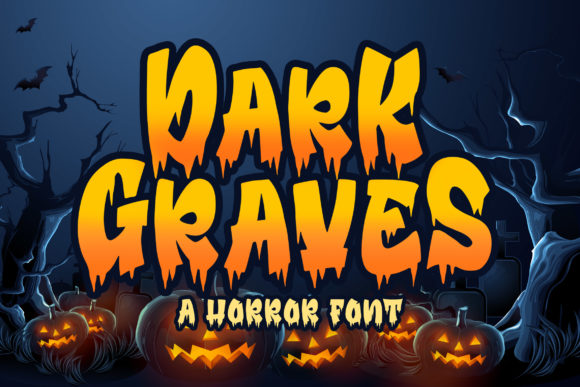
**Dark Graves Font: An Eerie Delight for the Macabre Aesthetic**
Unleash your inner ghoul and embrace the chilling allure of Dark Graves Font, a display masterpiece that will cast a sinister spell on your designs. This font exudes an authentic aura of the macabre, making it the perfect companion for all your spine-tingling projects.
Imagine crafting spine-chilling Halloween cards that send shivers down the recipients' spines. Or, envision creating haunting horror movie posters that will keep audiences on the edge of their seats. Dark Graves Font empowers you to weave tales of terror and enchantment with every stroke.
Its menacing curves and sharp angles evoke a sense of ancient mysteries, beckoning you to explore the depths of your imagination. Whether you're a seasoned designer or a creative novice, Dark Graves Font will elevate your projects to new heights of originality and impact.
**Embrace the Darkness with Dark Graves Font**
* Conjure spine-tingling Halloween cards that will haunt your friends and family
* Create horror movie posters that will send shivers down the spines of your audience
* Design unsettling invitations for your next costume party
* Craft enigmatic branding materials that will leave a lasting impression
* Add an air of mystery to your social media posts and website content
**Unleash Your Inner Ghoul with Dark Graves Font**
Dark Graves Font is your gateway to the world of the macabre. With its eerie charm and authentic feel, this font will empower you to create designs that will make your audience tremble with delight.